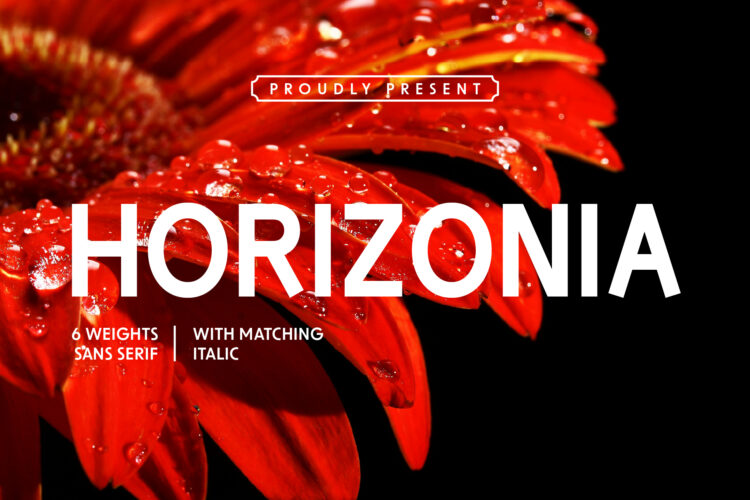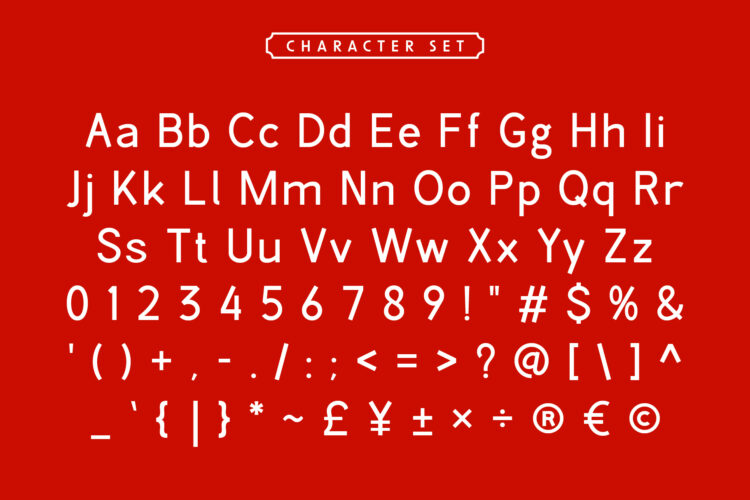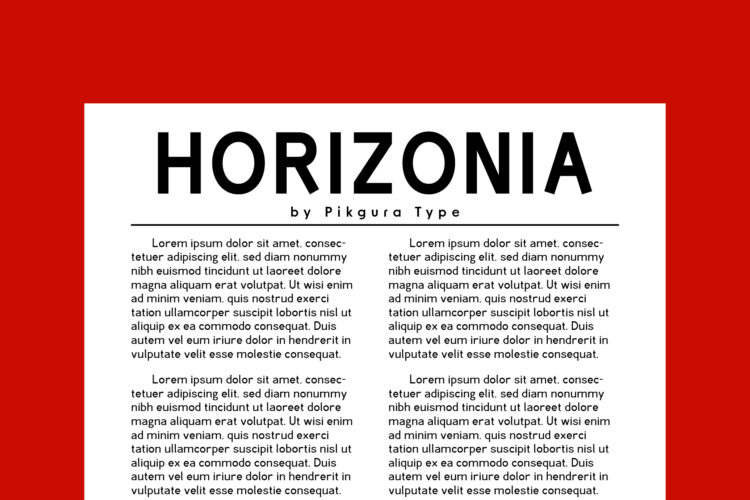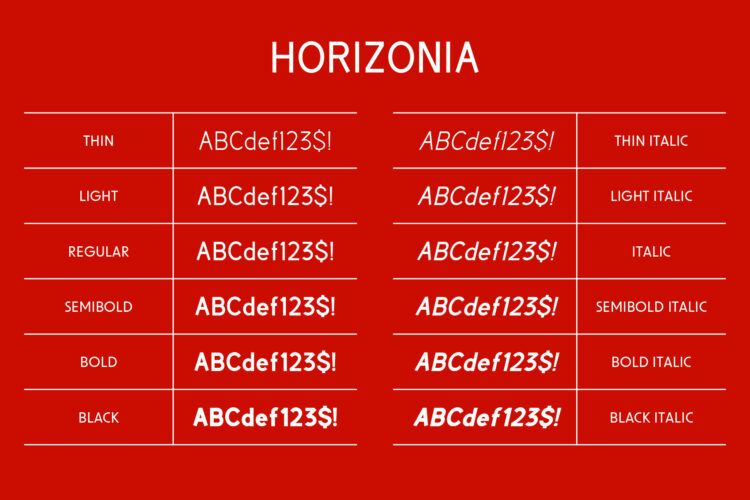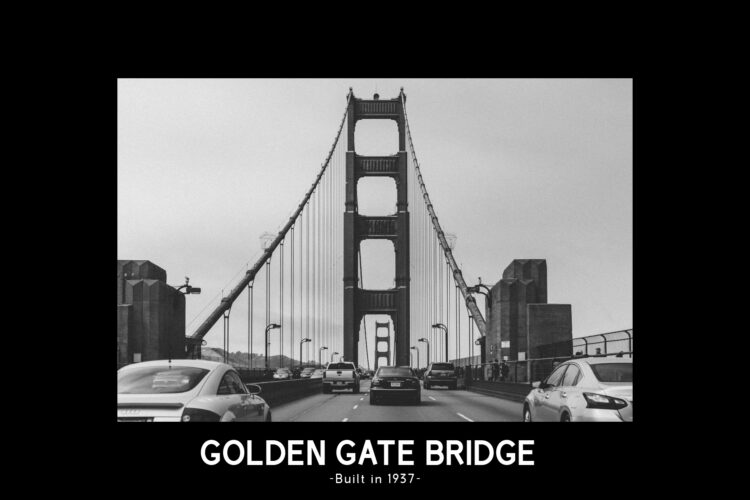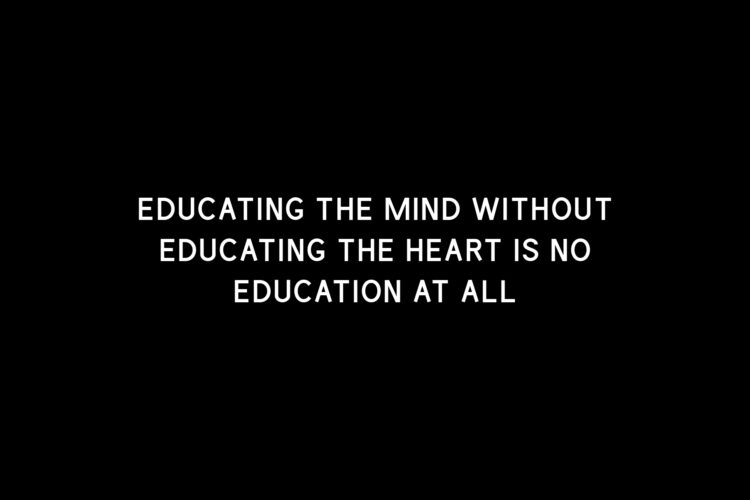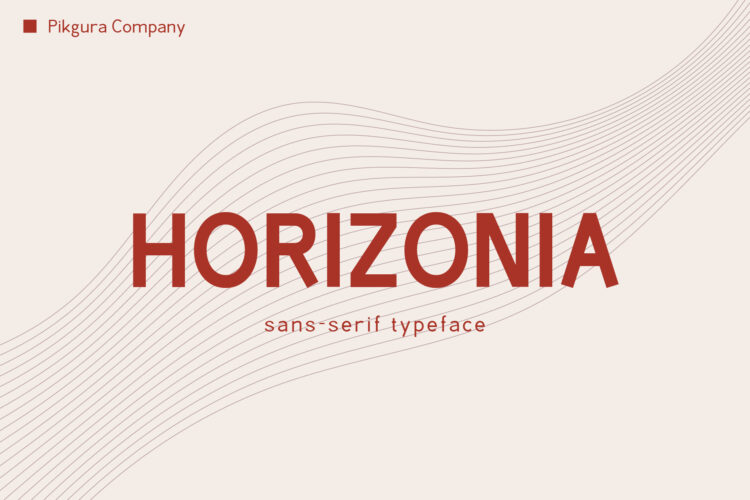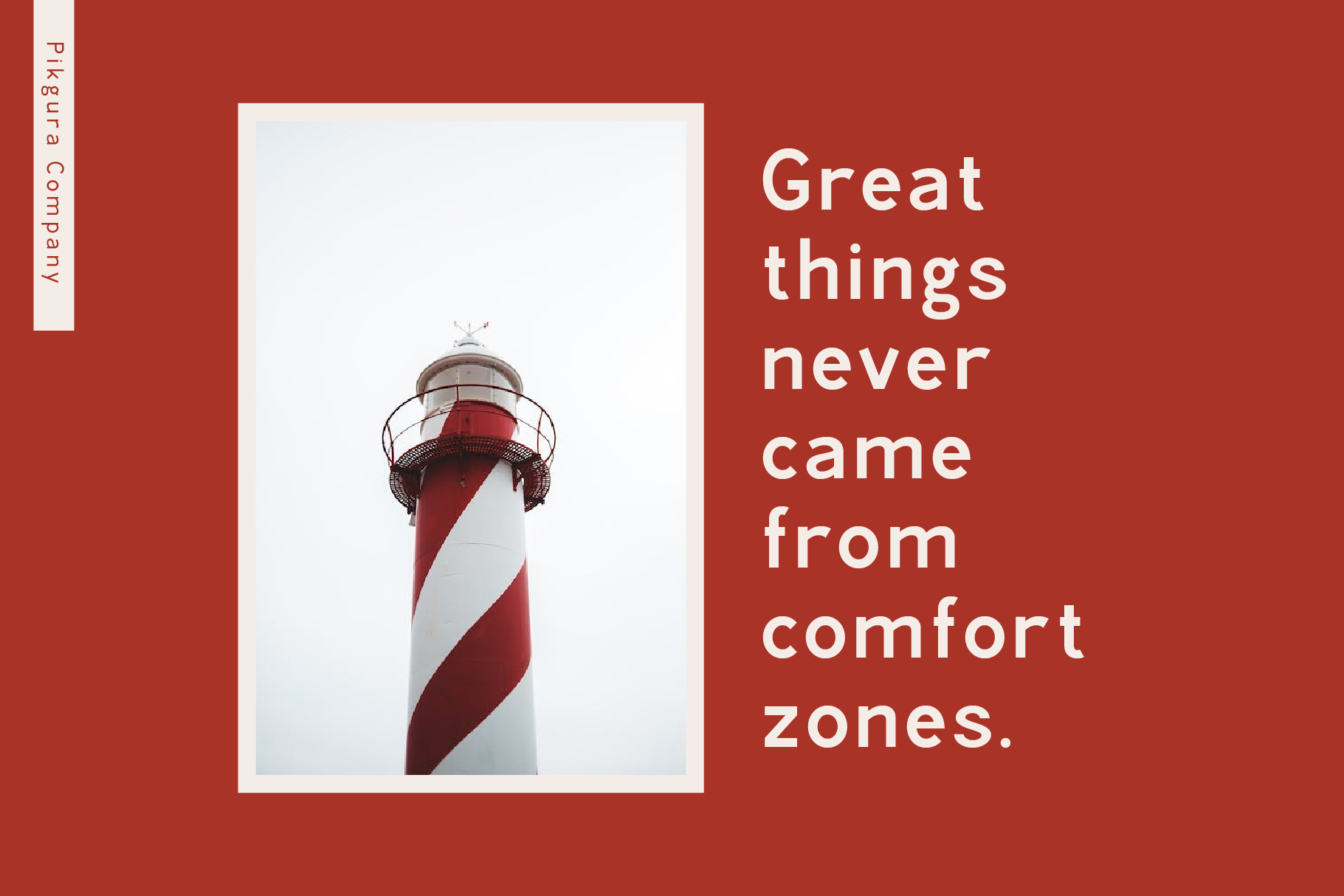
Horizonia Font is a very perfect choice for your logos, headlines, and body text alike. With clean line and strong characters, you can easily create a cohesive look for your brand or project. Plus, its simplicity makes it easy to read and comprehend, so you can be sure your message is getting across loud and clear.
Horizonia Font comes with 6 weights and includes with matching italic
• Thin
• Thin Italic
• Light
• Light Italic
• Reguler
• Italic
• Semi Bold
• Semi Bold Italic
• Bold
• Bold Italic
• Black
• Black Italic
Horizonia – Sans Serif Font